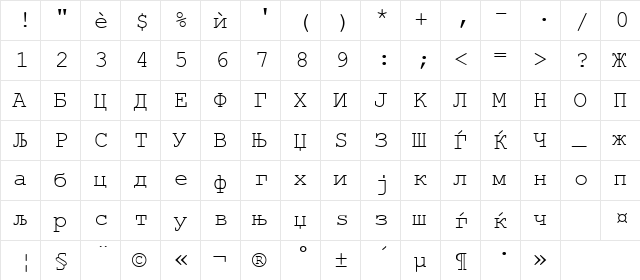
Macedonian Courier Regular
Design Context for Macedonian Courier Typeface
Macedonian Courier brings the precise, column-aligned rhythm of monospaced typography to designs that value technical clarity and systematic order.
Pro Tip: Pair Macedonian Courier with a proportional sans for UI contexts where code-style labels and regular body copy need to coexist.